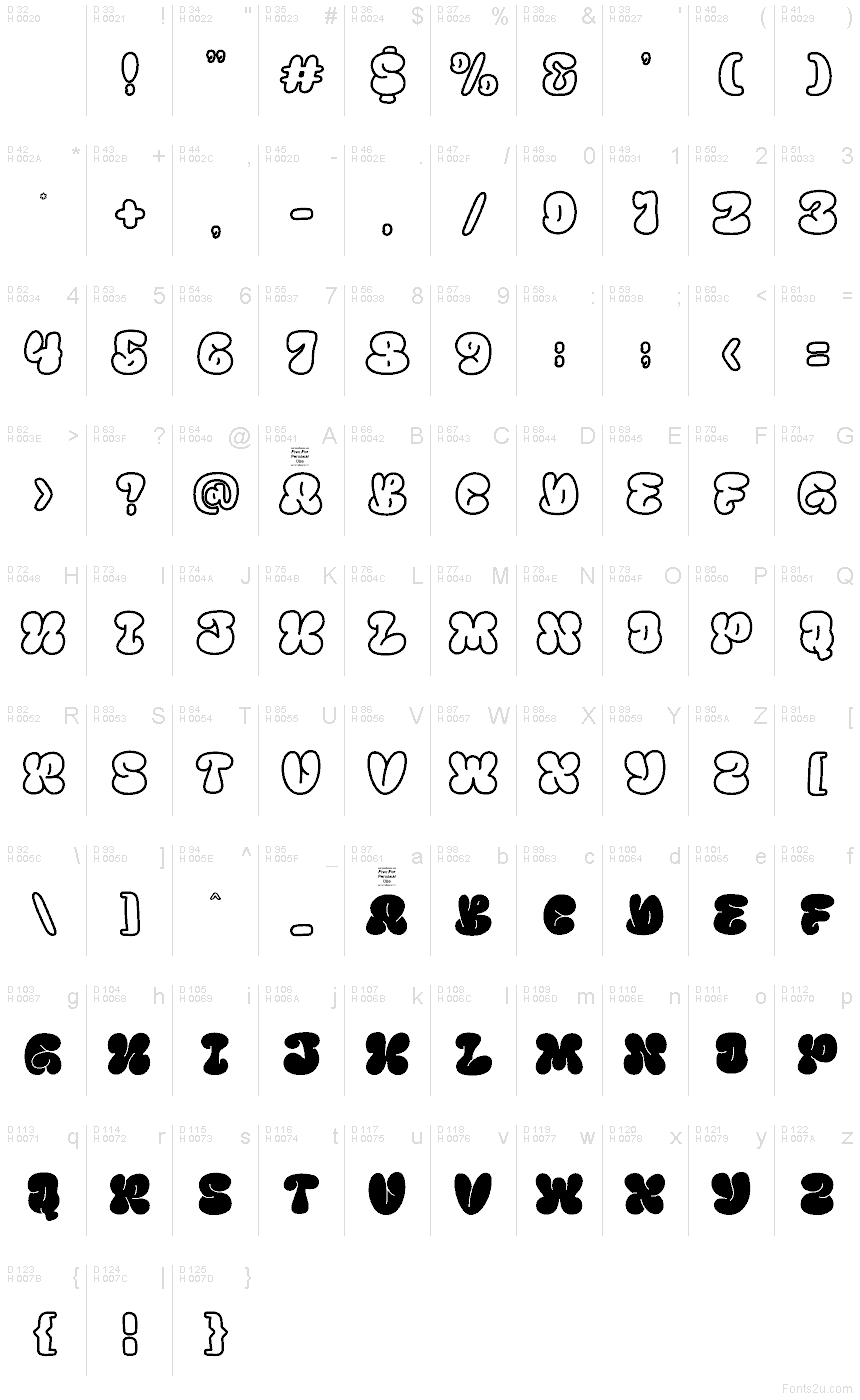
Begun Romet
Begun Romet font by Ermedia Studio is a free cartoon display font that swells with marshmallowy curves and splashy, inkblot shapes. It trades straight lines for puffy, petal-like forms that look stamped and slightly wobbly, giving headlines a friendly, oversized bounce. The mix of dense black fills and airy inner spaces creates bold rhythm on the page, so a few words feel instantly loud and joyful.
Using Begun Romet, your message pops on kids’ posters, candy or ice-cream packaging, birthday invites, playful brand marks, festival titles, stickers, and YouTube thumbnails. This free font wants big sizes and tight spacing for maximum squish. Pair it with a simple rounded sans for captions to keep the fun readable without competing for attention.